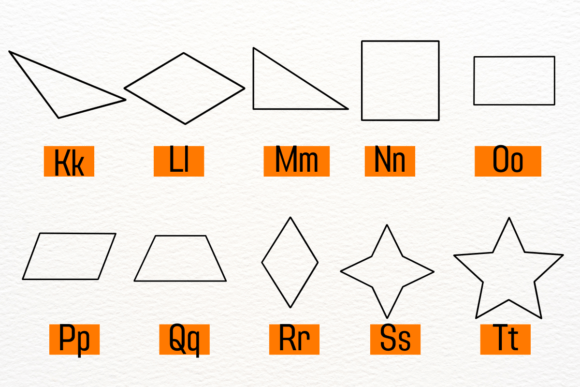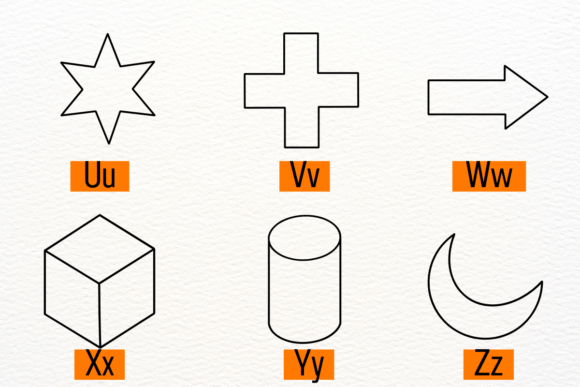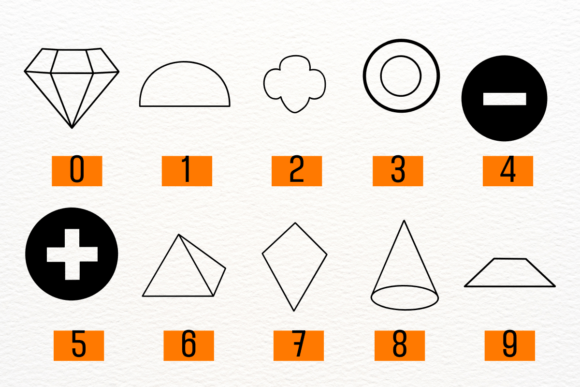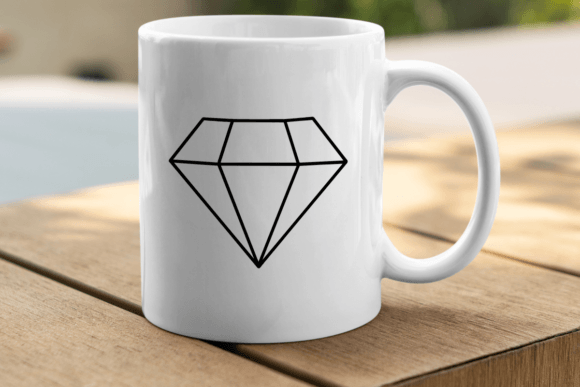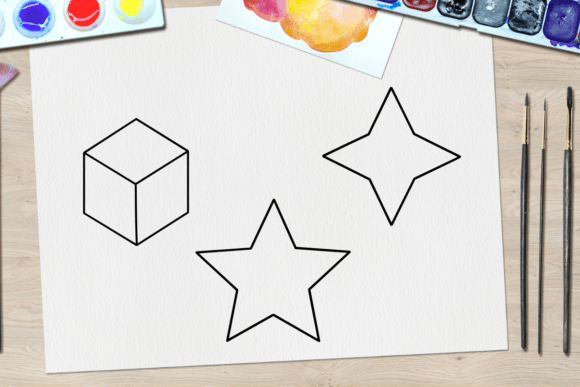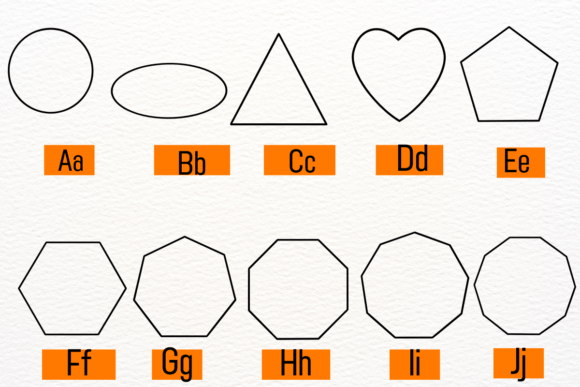
Introduction to Cute Shape Font
Do you remember the thrill of discovering a new design resource that instantly sparks your creativity? For designers, it’s like stumbling upon a hidden treasure that transforms a project from ordinary to extraordinary. I’m excited to share with you a delightful discovery that will add a touch of magic to your next creative project: the Cute Shape Font.
This charming dingbat font boasts 400 unique characters, each lovingly crafted to provide endless design possibilities. From whimsical icons to playful textures, the Cute Shape Font is a high-quality resource that will elevate your designs to new heights. With its transparent background and free download option, you can easily integrate it into your next project and unleash your creativity. Whether you’re a seasoned designer or a hobbyist, the Cute Shape Font is a valuable addition to your design toolkit.
Key Features of Cute Shape Font
- High-quality vector graphics with a transparent background, ideal for use in creative projects that require a unique design resource.
- Unique, hand-drawn design style that adds a touch of whimsy and personality to any creative project.
- Perfect for use in a variety of design contexts, including children’s books, educational materials, and marketing campaigns.
Honest Review: Cute Shape Font
As a designer, I’m always on the lookout for high-quality design resources that can elevate my creative projects. Recently, I stumbled upon the Cute Shape Font, and I must say, it’s a gem.
What works well: ✨ This font is perfect for adding a playful touch to your designs. The cute shapes and illustrations make it an ideal choice for children’s books, educational materials, and even social media graphics. The font is also available for free download, which is a huge plus.
- High-quality vector graphics
- Perfect for creative projects, especially those targeting a younger audience
However, there are a few limitations to consider: ⚠️ The font is limited in its versatility, and it may not be suitable for all types of projects. Additionally, the illustrations can be quite busy, which may make them difficult to read in certain contexts.
Overall, I’m impressed with the Cute Shape Font. It’s a great addition to any designer’s toolkit, and it’s perfect for those looking to add a touch of whimsy to their creative projects.
What is Cute Shape Font?
Cute Shape Font is a high-quality design resource that can elevate your creative project with its adorable and playful shapes. This font is perfect for adding a touch of whimsy to your designs.
Tips for Getting the Most Out of Cute Shape Font
Here are a few tips for getting the most out of Cute Shape Font: use a transparent background to make the font stand out, experiment with different font sizes and colors, and combine the font with other design elements for a unique look.
Cute Shape Font is perfect for a variety of projects, including: children’s book illustrations, social media graphics, party invitations, and educational materials. You can also use the font to create custom logos, icons, and graphics for your business or personal brand.